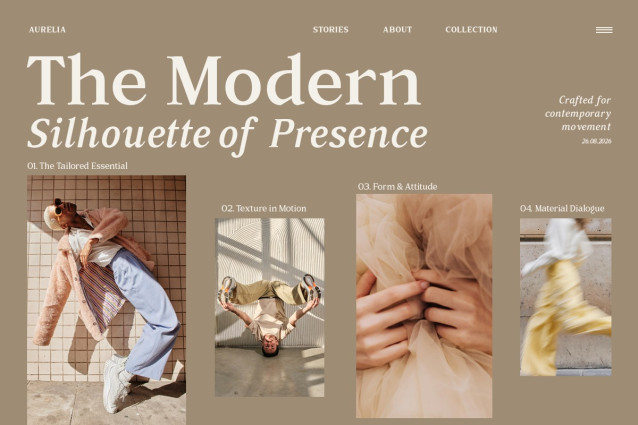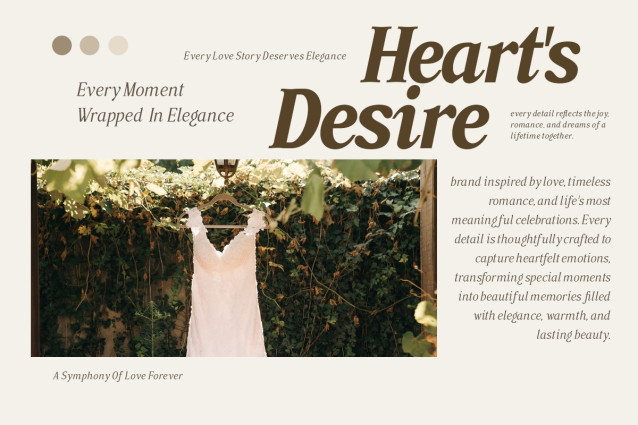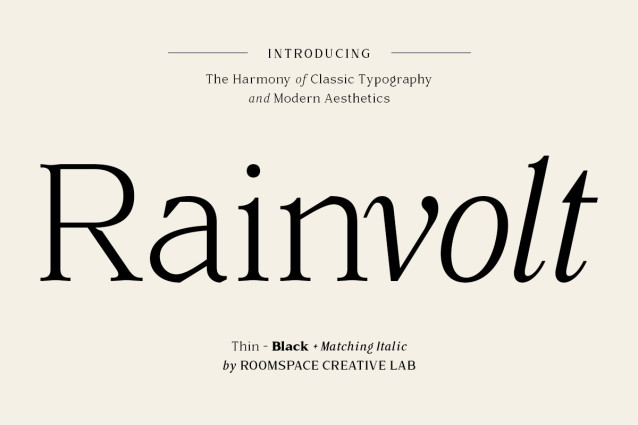
Rainvolt – Classic Letterforms Font
Rainvolt – Classic Letterforms Font is an elegant high-contrast serif typeface inspired by classic typography, contemporary fashion, editorial design, and refined visual identities. It features graceful curves, refined proportions, sharp serifs, and expressive italic forms that create sophisticated headlines while maintaining excellent readability.
Designed primarily for display and editorial use, Rainvolt is ideal for branding projects that require a timeless yet contemporary personality. Whether you’re creating logos, fashion branding, magazines, wedding stationery, product packaging, beauty identities, posters, invitations, or social media visuals, this typeface brings a refined editorial presence to every composition.
The family includes five weights ranging from Thin to Black, along with matching Italic styles, giving you greater flexibility to create contrast, hierarchy, and expressive typography across different design applications.